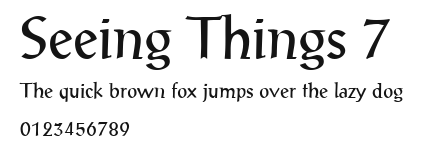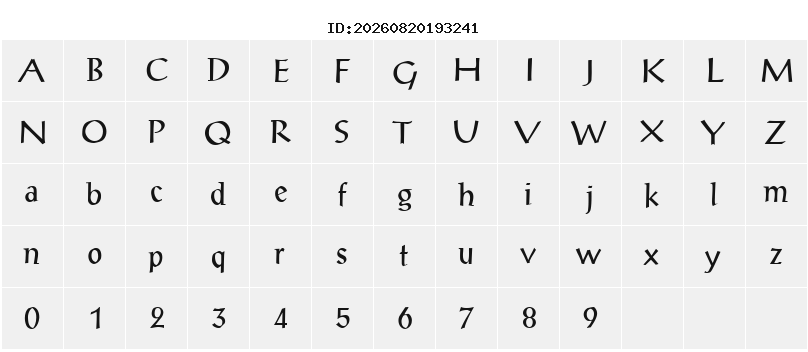
Seeing Things 7 Preview
• Font Name: Seeing Things 7
• Font Style: regular
• Full Font Name: Seeing Things 7
Seeing Things 7.ttf is a modern, elegant sans-serif font designed for ultimate readability and visual harmony. Perfect for branding, headlines, web design, and print materials.